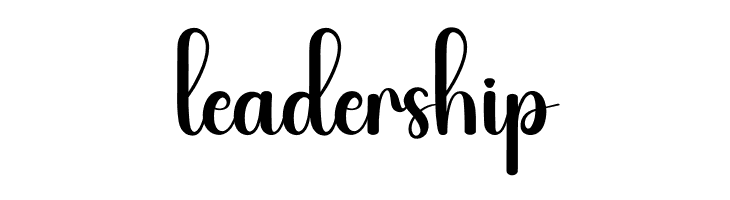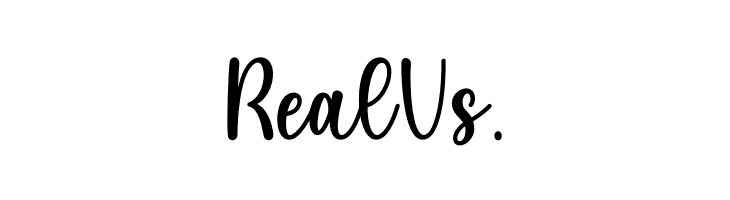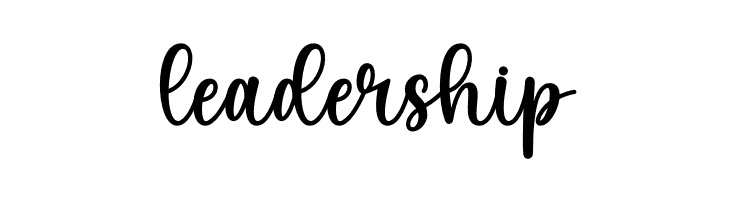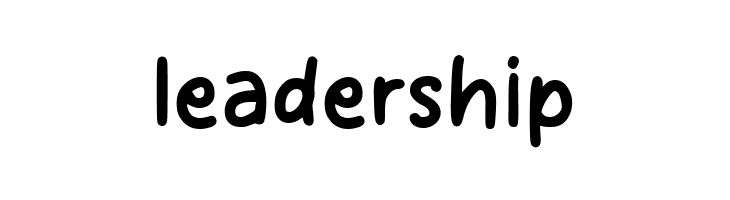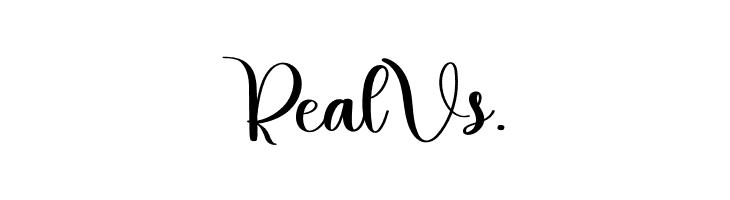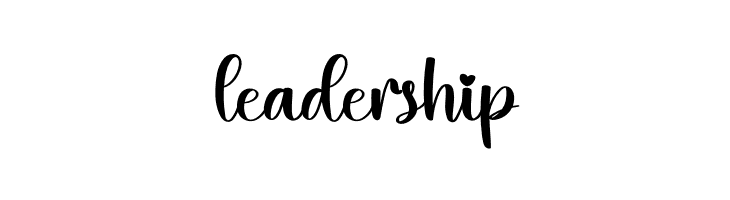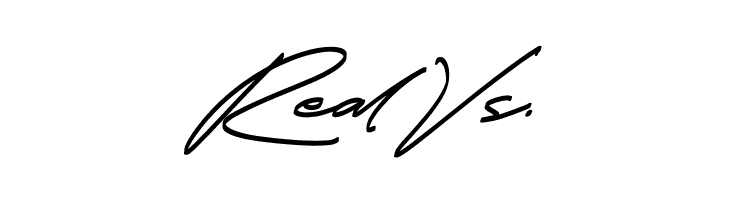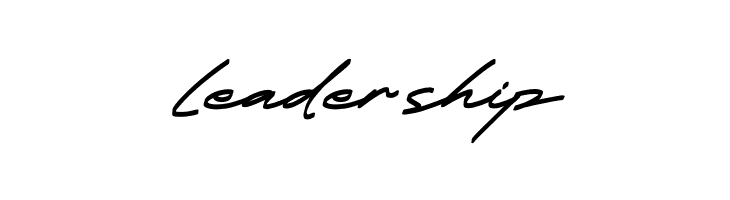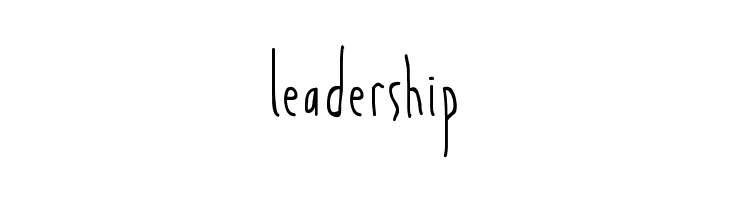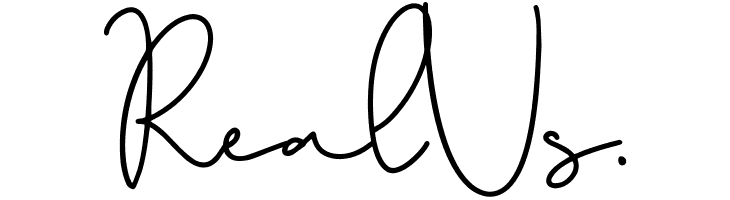
A playful, handwritten font with tall, narrow letters and a casual style.
A playful, handwritten font with a casual and informal style.
A playful, casual handwritten font with smooth, rounded edges.
A playful, handwritten font with smooth, flowing lines and a casual style.
Elegant, handwritten script with tall, flowing letters.
A playful, handwritten font with rounded, consistent strokes and a friendly appearance.
A bold, graffiti-inspired handwritten font with tight spacing and dynamic strokes.
A bold, graffiti-inspired font with a playful, handwritten style.
Playful handwritten font with tall, narrow letters.
A bold, expressive brush script font with dynamic strokes.
A bold, energetic script font with sweeping strokes and dynamic movement.
A decorative, whimsical font with elegant swirls and a playful handwritten style.
A classic blackletter font with ornate, angular strokes and a medieval aesthetic.
An ornate Gothic font with intricate details and dramatic flourishes.
A playful, handwritten font with bold, irregular strokes and a whimsical style.
A graceful, handwritten script font with flowing, connected strokes.
A modern, elegant handwritten script with flowing, connected strokes.
A lively, cursive font with bold, expressive strokes and a natural handwriting style.
A playful, bold script font with a handwritten style.
A bold, playful handwritten font with dynamic strokes and a casual feel.
A bold, playful handwritten font with a casual and friendly style.
Elegant cursive script with a handwritten style.
A tall, slender font with thin strokes and a modern, elegant style.
A playful, handwritten font with rounded edges and a casual style.
A charming handwritten font with fluid, continuous strokes and a personal touch.
A playful handwritten font with tall, narrow letterforms and a casual style.
A refined, decorative script font with elegant, flowing lines.
A casual, handwritten font with a playful and personal touch.
Elegant cursive script with modern flair.
A playful, cursive script font with elegant loops and decorative flourishes.
A dynamic and fluid script font with elegant, flowing letterforms.